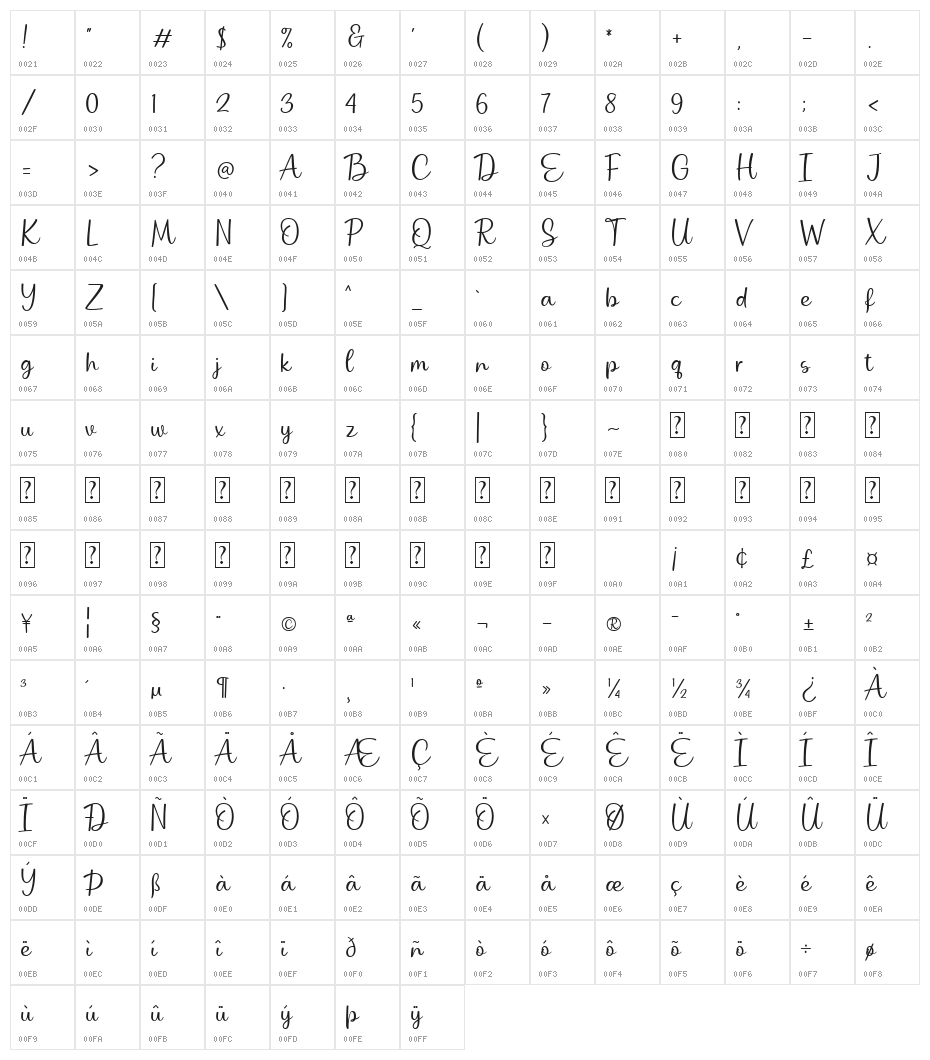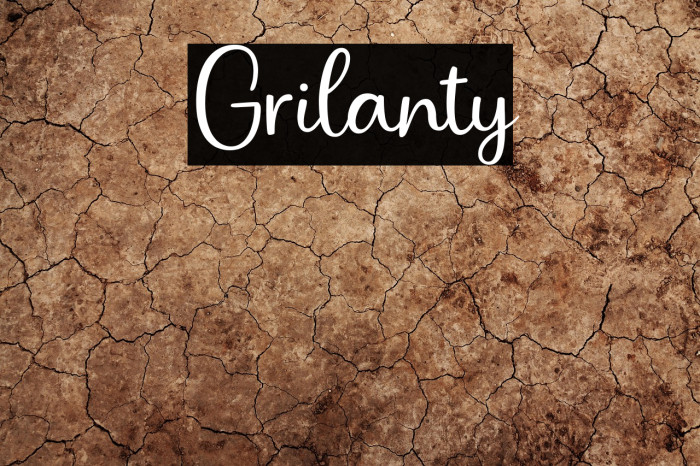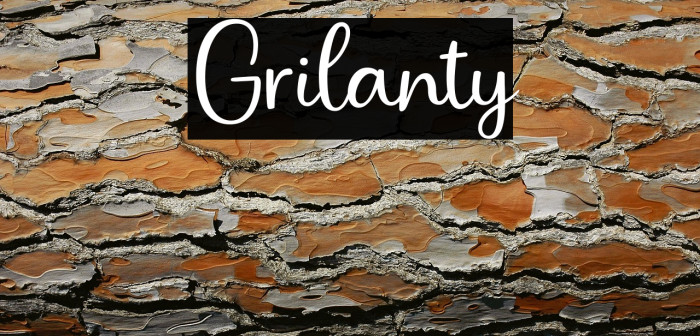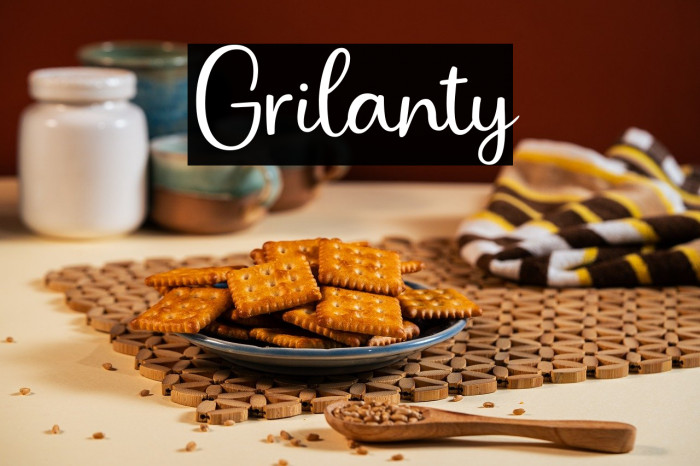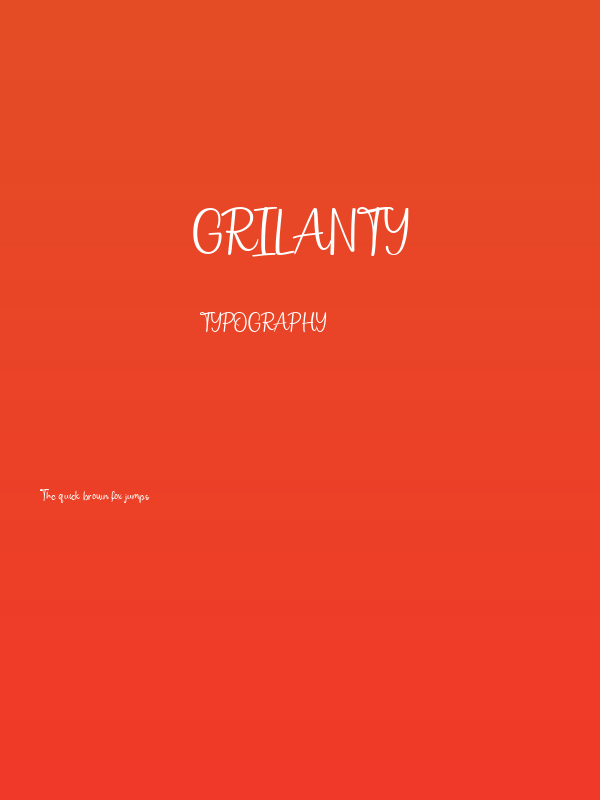
Grilanty Font
Grilanty Description
This font features a flowing, handwritten style with a modern twist. The characters are elegantly crafted with smooth curves and a slight slant, giving it a dynamic and lively appearance. The uppercase letters are bold and prominent, while the lowercase letters maintain a consistent flow, enhancing readability. The numerals are clear and well-proportioned, matching the overall aesthetic. Special characters are thoughtfully designed to complement the alphabet, making this font versatile for various uses. The overall design is both stylish and approachable, suitable for a wide range of creative projects.
| Use Case | Logos, Headlines, Invitations |
| Proposed Projects | Ideal for invitations, greeting cards, branding, and social media graphics. |